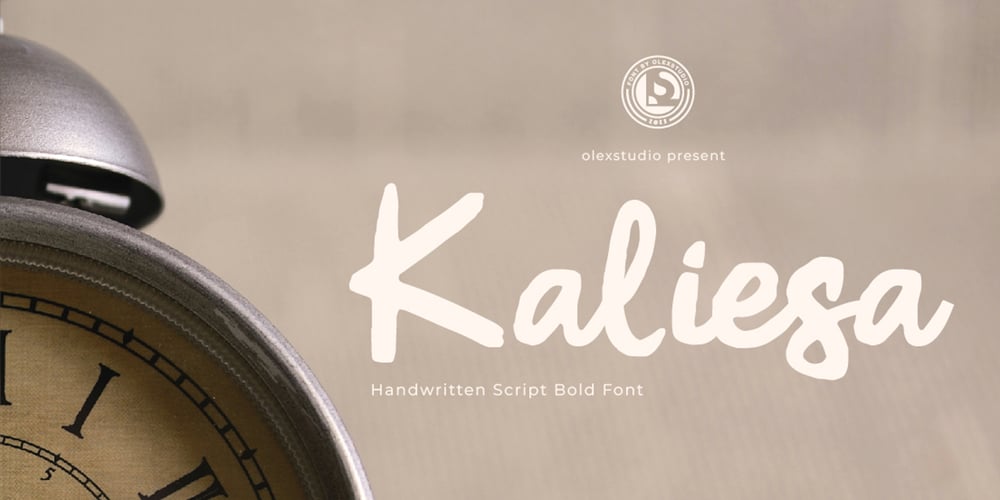
Kaliesane Olstd Font Family was designed by Firman Syah and published by Olexstudio. Kaliesane Olstd contains 1 styles and family package options. Kaliesa – Handwritten Script Font will look gorgeous on all your designs, invitation, poster design, book design, branding materials, logo’s, and all project design other.WHAT’S INCLUDEDKaliesa – Handwritten Script Font contains standard characters, Lowercase, Uppercase, Alternates, numbers, punctuation, ligatures and international glyphs. Thanks, enjoy designedolexstudio